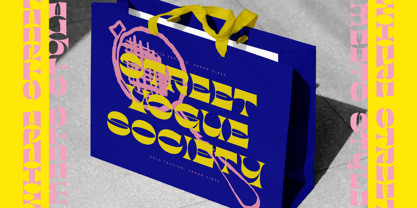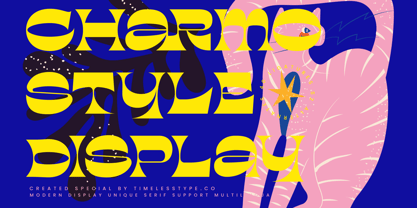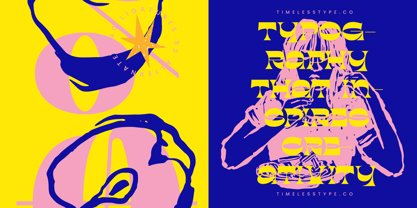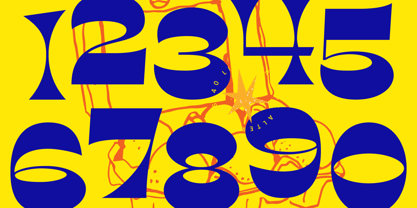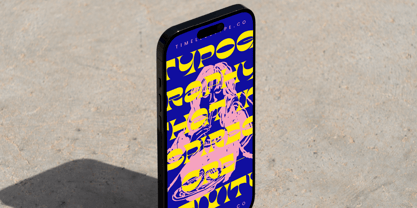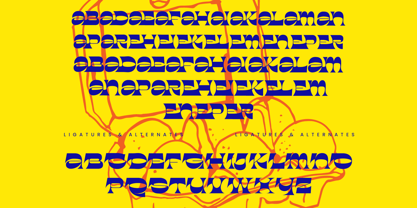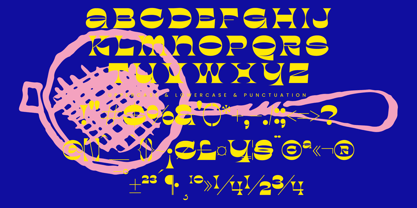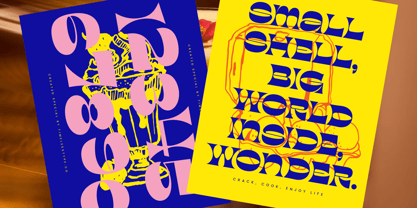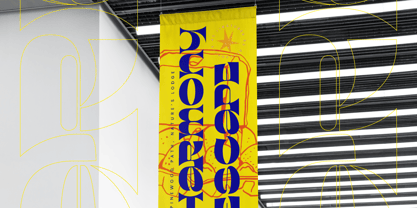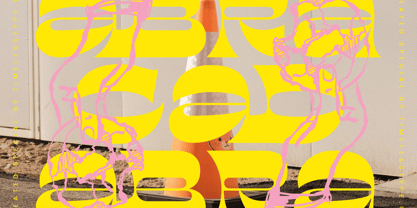
Charmo Style
The Charmo Style Font Family was designed by Heru Utama Putra and published by Timelesstype Studio. Charmo Style contains 2 styles and family package options. More about this family
Charmo Style - Modern Display Unique Serif , from Timelesstype , Suitable for any projects such as: logos, branding projects, homeware designs, product packaging, mugs, quotes, posters, shopping bags, t-shirts, book covers, name card, invitation cards, greeting cards, label, photography, watermark, special events, and all your other luxury and beautiful projects that need a Luxury Serif taste.